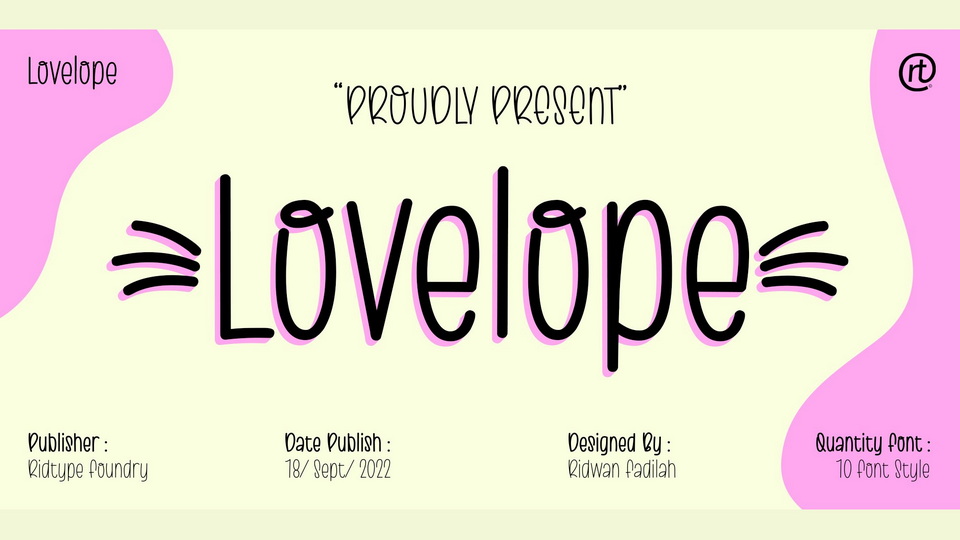
Download Lovelope font, a cute handwritten font sans serif style. Lovelope font is inspired by the expression of happiness from the activities carried out by a little girl in the expression of joy.
Designer: Ridwan Fadilah